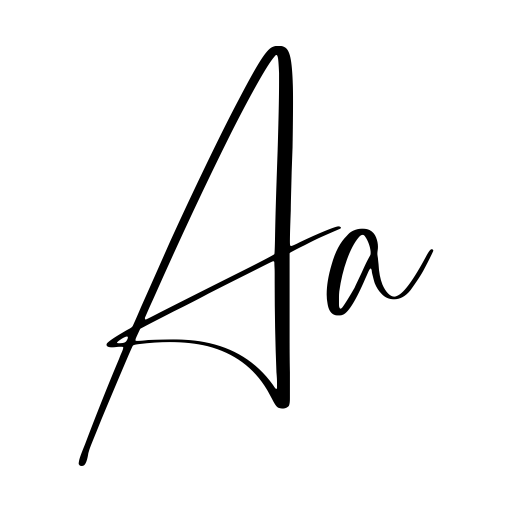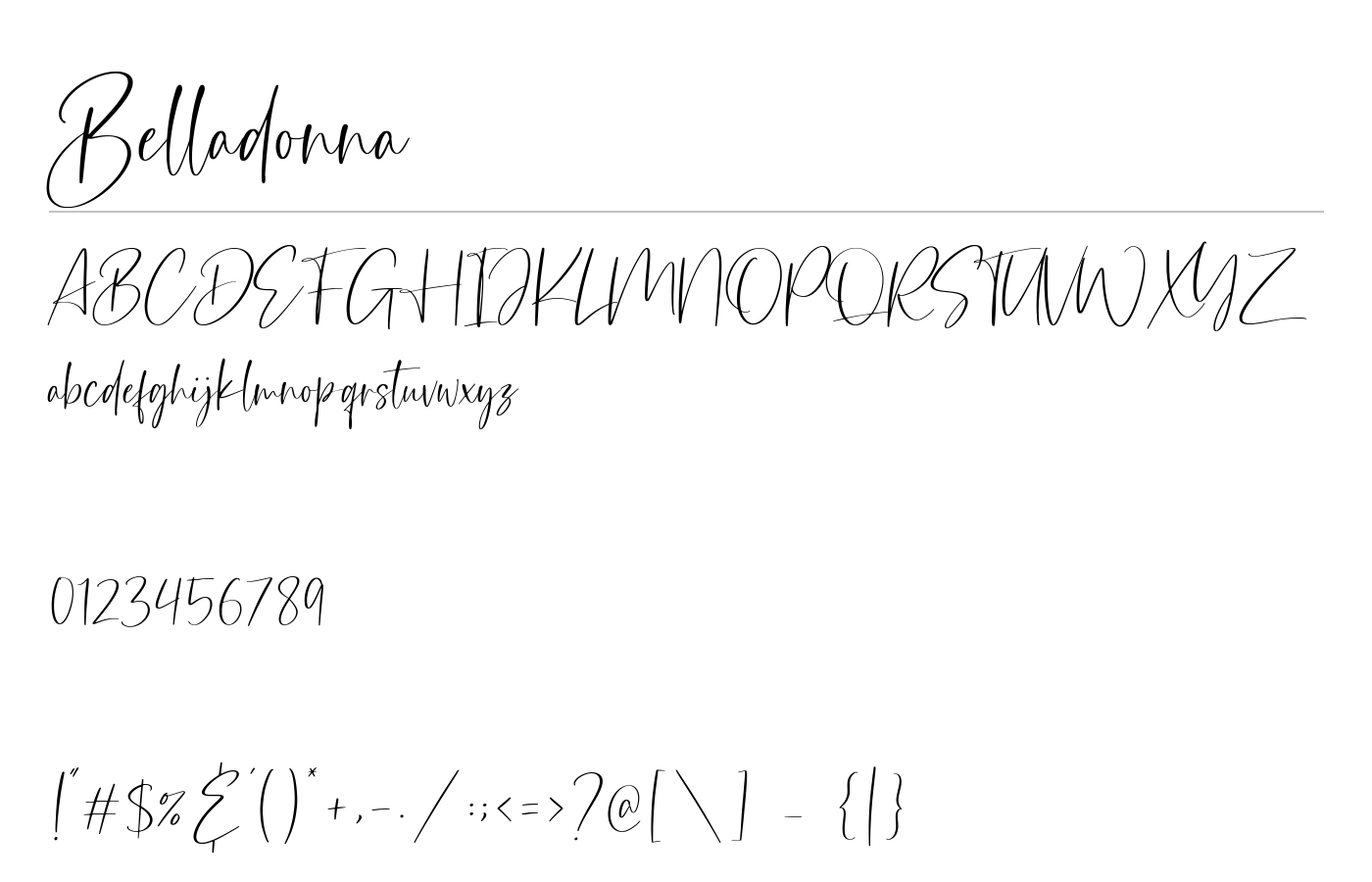
Belladonna is a delicate, handwritten script font with thin, flowing strokes that convey elegance and a personal touch. Its tall, narrow letterforms and subtle variations in line thickness give it a graceful and modern feel, making it ideal for invitations, branding, and feminine design projects that seek a stylish yet approachable look.
Belladonna Font
About Belladonna Font
| Font family | Belladonna Font |
| Designer | Atharuah Studios |